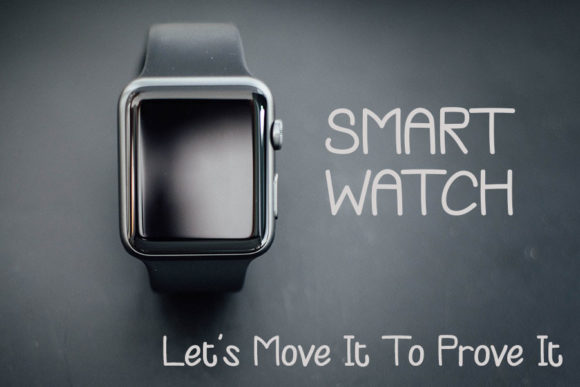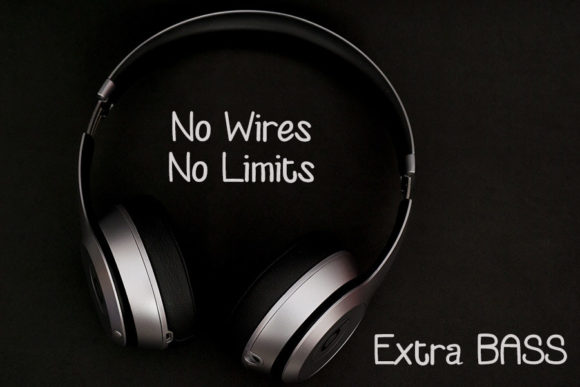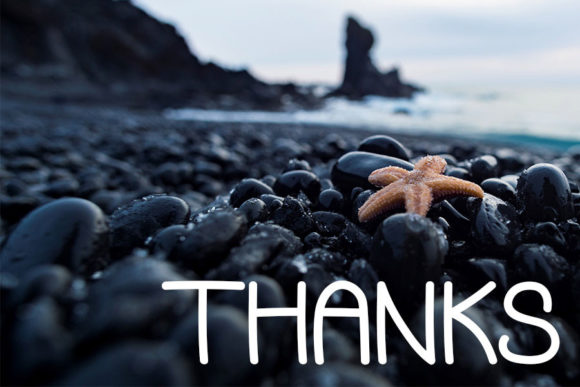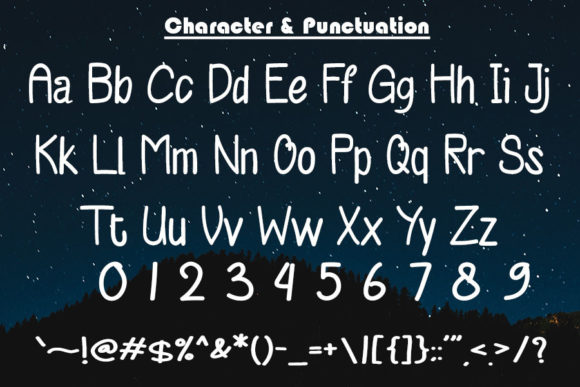
Introducing Arbaeen Font: The Ultimate Handwritten Font for Creative Projects
Are you tired of using the same old fonts for your creative projects? Look no further than Arbaeen Font, a cool, informal, and adaptable handwritten font that’s sure to take your designs to the next level. With its simple yet strong visual effect, Arbaeen Font is the perfect choice for designers and crafters looking to add a personal touch to their work.
What is Arbaeen Font?
Arbaeen Font is a unique and stylish handwritten font that’s designed to be both versatile and visually appealing. Its informal and adaptable nature makes it perfect for a wide range of creative projects, from social media graphics and posters to invitations and crafts. Whether you’re a professional designer or a DIY enthusiast, Arbaeen Font is sure to become a go-to choice for adding a personal touch to your work.
Key Features of Arbaeen Font
- Cool and Informal: Arbaeen Font has a relaxed and casual vibe that’s perfect for creating laid-back and approachable designs.
- Adaptable: This font is highly versatile and can be used for a wide range of creative projects, from digital designs to print materials.
- Simple yet Strong Visual Effect: Arbaeen Font has a simple yet striking visual effect that will instantly elevate your designs and make them more appealing.
- Handwritten Style: The font’s handwritten style adds a personal touch to your designs, making them more relatable and engaging.
Benefits of Using Arbaeen Font
So why choose Arbaeen Font for your creative projects? Here are just a few benefits of using this amazing font:
- Instantly Elevate Your Designs: With its strong visual effect, Arbaeen Font will instantly take your designs to the next level and make them more appealing.
- Add a Personal Touch: The font’s handwritten style adds a personal touch to your designs, making them more relatable and engaging.
- Save Time: Arbaeen Font is easy to use and can be applied to a wide range of creative projects, saving you time and effort.
- Stand Out from the Crowd: With its unique and stylish design, Arbaeen Font will help your creations stand out from the crowd and grab attention.
Who Can Use Arbaeen Font?
Arbaeen Font is perfect for a wide range of designers and crafters, including:
- Graphic Designers: Use Arbaeen Font to create stunning social media graphics, posters, and other visual materials.
- DIY Enthusiasts: Add a personal touch to your DIY projects, such as invitations, crafts, and other handmade items.
- Crafters: Use Arbaeen Font to create beautiful and unique crafts, such as handmade cards and gift tags.
- Small Business Owners: Use Arbaeen Font to create eye-catching branding materials, such as logos, business cards, and brochures.
In conclusion, Arbaeen Font is a cool, informal, and adaptable handwritten font that’s perfect for designers and crafters looking to add a personal touch to their creative projects. With its simple yet strong visual effect, Arbaeen Font is sure to instantly elevate your designs and make them more appealing. So why wait? Download Arbaeen Font today and take your creative projects to the next level!